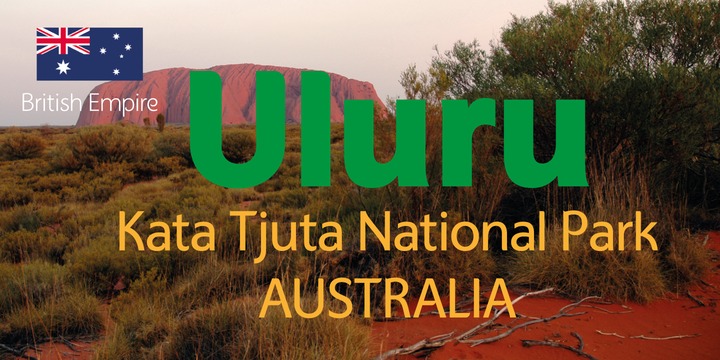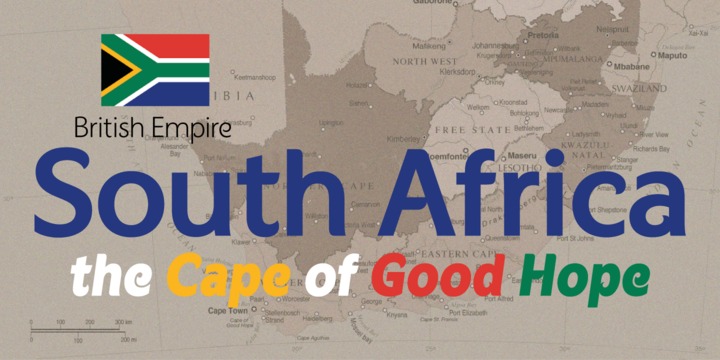
Discover the British Empire Family Font: A Unique Sans-Serif with a Rich History
The British Empire Family Font is a distinctive sans-serif typeface that pays homage to the typographic characteristics of countries within the former British Empire. Designed with a keen eye for detail, this font features unusual up-facing serifs on some of the capital letters and rounded terminals on the lowercase characters, giving it a unique and captivating aesthetic.
A Brief History of the British Empire Family Font
The British Empire Family Font is an attempt to revive the typographic styles of the countries that were once part of the British Empire. The font’s design is inspired by the diverse range of typefaces that emerged during the Empire’s heyday, when different countries developed their own distinct typographic characteristics. By combining these elements, the British Empire Family Font creates a unique and fascinating visual identity.
Design Features of the British Empire Family Font
The British Empire Family Font is a sans-serif typeface, which means it doesn’t have the small lines or flourishes at the ends of the letters. However, what sets it apart from other sans-serif fonts is the presence of unusual up-facing serifs on some of the capital letters. These serifs add a touch of elegance and sophistication to the font, making it perfect for headlines and titles.
Another distinctive feature of the British Empire Family Font is the rounded terminals on the lowercase characters. The round characters, such as the “a”, “c”, and “e”, have a subtle flick at the end, which gives the font a sense of movement and fluidity. This design element adds a touch of warmth and approachability to the font, making it suitable for use in a variety of design applications.
Weights and Styles of the British Empire Family Font
The British Empire Family Font comes in four weights, each with four corresponding italics. This range of weights and styles allows designers to use the font in a variety of contexts, from headlines and titles to body text and captions. The four weights are:
- Light: A delicate and elegant weight, perfect for use in headlines and titles.
- Regular: A versatile and balanced weight, suitable for use in body text and captions.
- Bold: A strong and confident weight, ideal for use in headlines and titles that require emphasis.
- Extra Bold: A robust and attention-grabbing weight, perfect for use in large headlines and titles.
Each weight has four corresponding italics, which add an extra layer of versatility to the font. The italics can be used to add emphasis, create visual interest, or simply to provide a different typographic style.
Uses of the British Empire Family Font
The British Empire Family Font is a versatile typeface that can be used in a variety of design applications. Its unique features and elegant aesthetic make it perfect for use in:
- Headlines and titles: The font’s unusual up-facing serifs and rounded terminals make it ideal for use in headlines and titles.
- Branding and logos: The font’s distinctive aesthetic makes it perfect for use in branding and logos.
- Packaging and advertising: The font’s elegant and sophisticated design makes it suitable for use in packaging and advertising.
- Digital media: The font’s clear and legible design makes it perfect for use in digital media, such as websites and mobile apps.
| Author | Alan Meeks |
The British Empire Family Font is a unique and captivating typeface that pays homage to the typographic characteristics of countries within the former British Empire. Its unusual up-facing serifs and rounded terminals make it perfect for use in a variety of design applications, from headlines and titles to branding and logos. With its range of weights and styles, the British Empire Family Font is a versatile and elegant typeface that is sure to add a touch of sophistication and elegance to any design project.